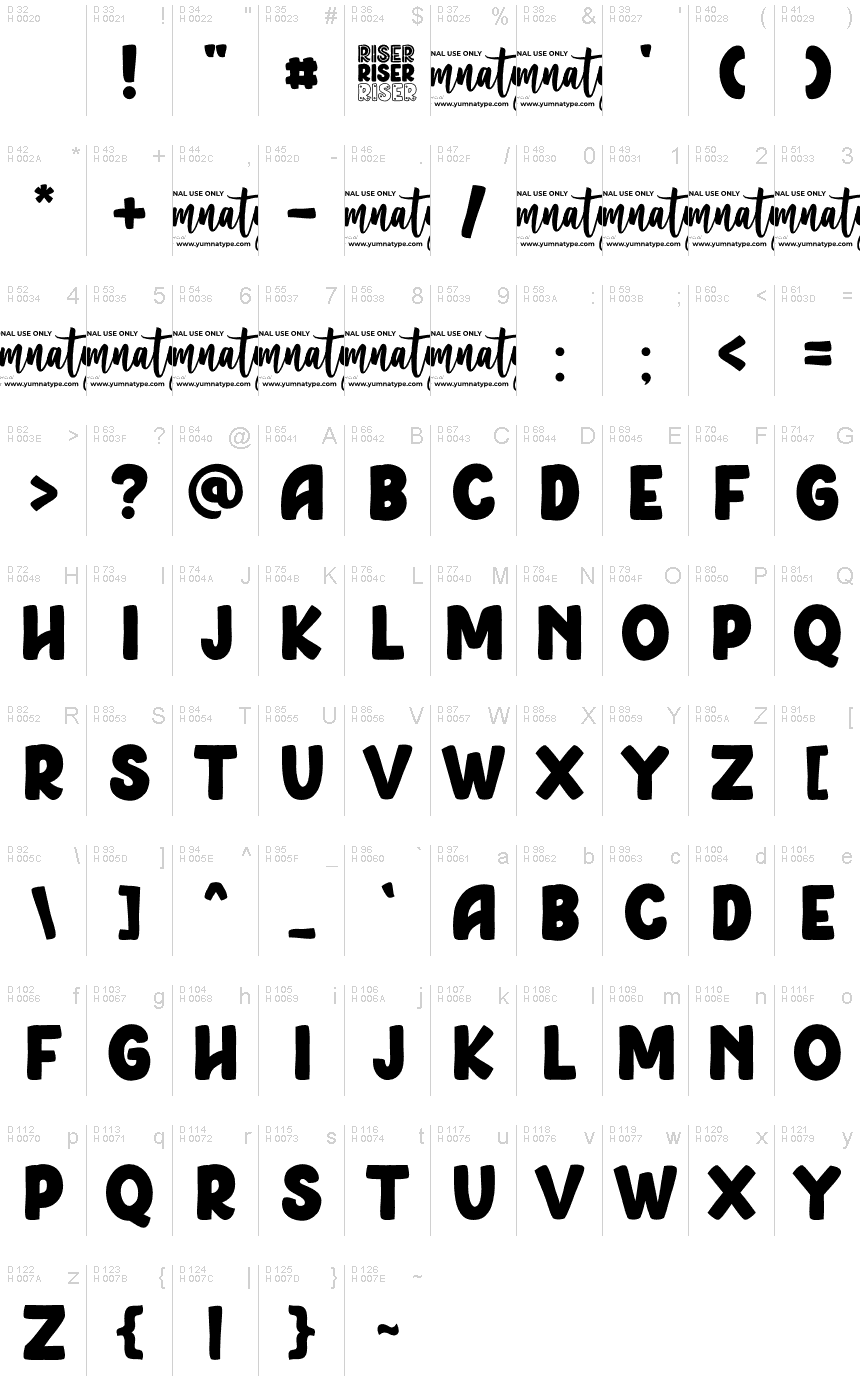
Riser Personal Use
Riser, designed by Yumna Family, is a charming and bold font that will add a touch of playfulness to any project. Its cute and whimsical display style makes it perfect for children's books, greeting cards, and invitations. The bold weight of Riser ensures that your message will stand out and make an impact. Whether you're designing a poster for a circus event or creating branding materials for a toy store, this font will bring life and joy to your designs. Give your projects a delightful twist with Riser!